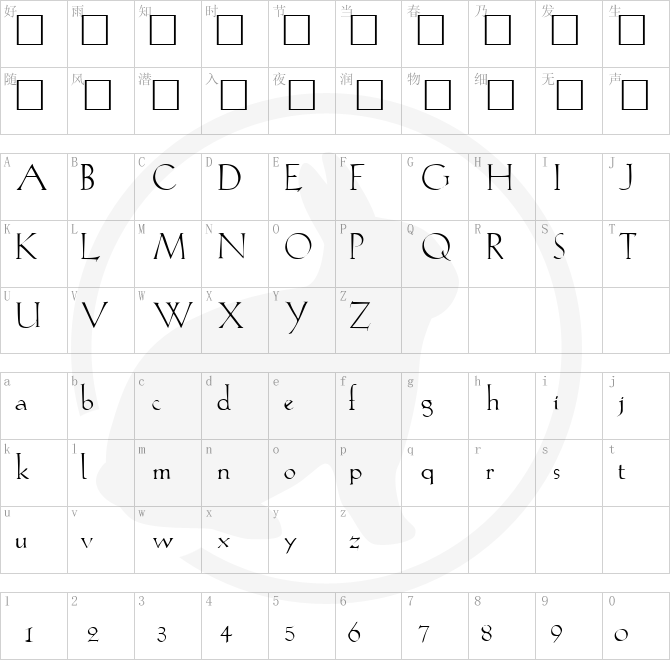
- Font Name:Gabel Lite
Gabel-Lite.ttf is a very beautiful artistic font, Gabel-Lite.ttf is widely used in the design and printing of various books and pictures,Gabel-Lite.ttf has a strong visual impact,Gabel-Lite.ttf is a commonly used font in newspapers, magazines and books, and is used in posters, e-commerce Poster design, store design, logo design, font design and other fields.Gabel-Lite.